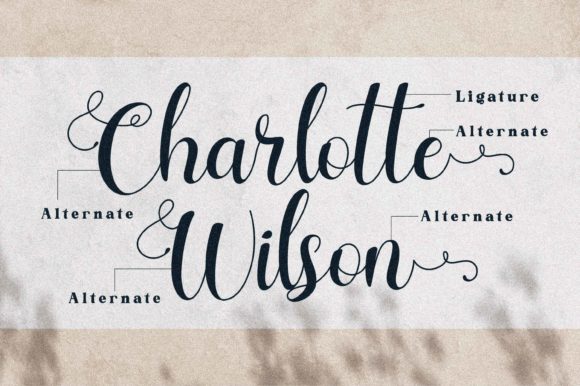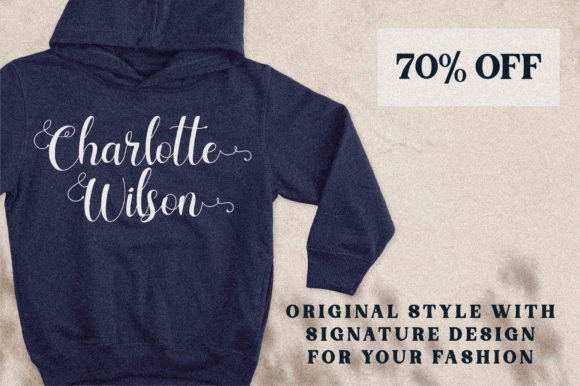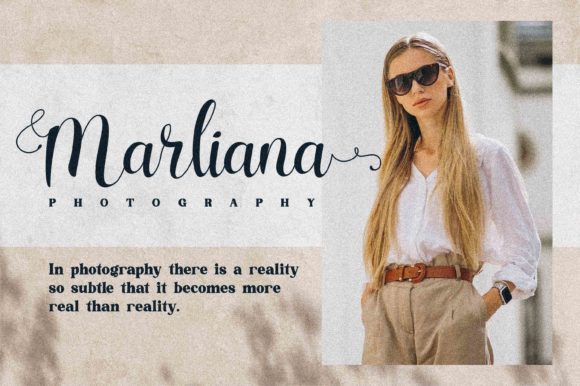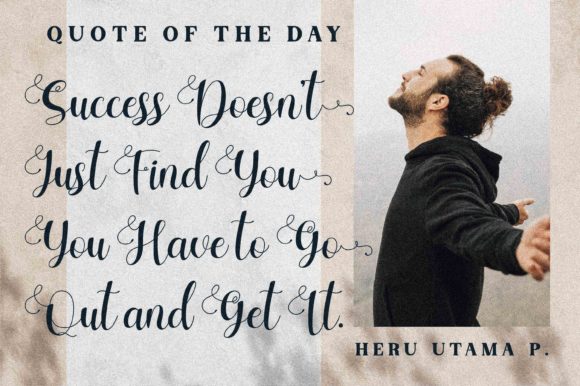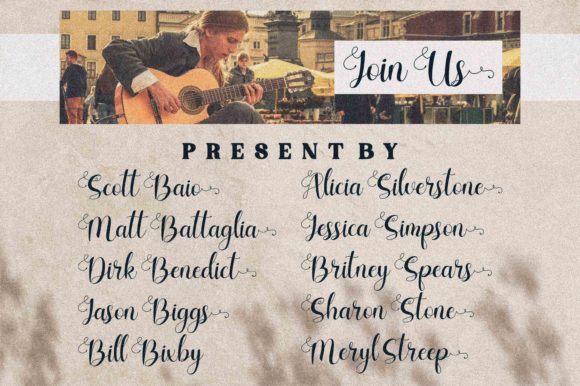
About Charlotte Wilson Font
Charlotte Wilson is a beautiful script font with a contrast between its thick letters and delicate swashes. It is a romantic calligraphy font, suitable for any projects such as logos, branding projects, homeware designs, product packaging, mugs, quotes, posters, shopping bags, t-shirts, book covers, name card, invitation cards, greeting cards, label, photography, watermark, special events, and all your other lovely projects that need a beautiful Script taste. This font is PUA encoded which means you can access the available glyphs and swashes with ease!